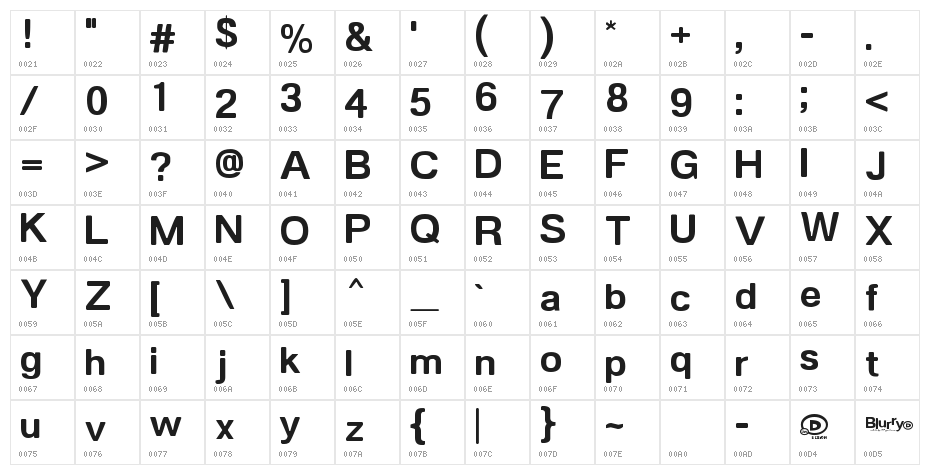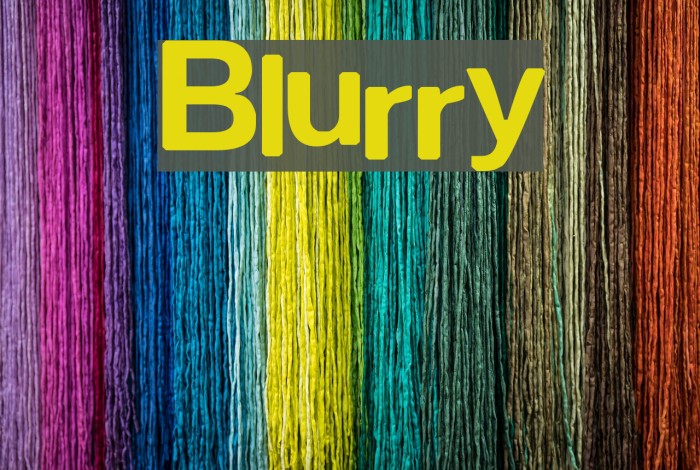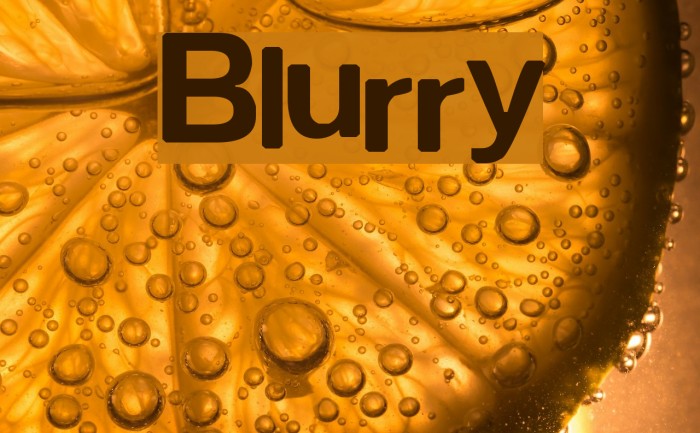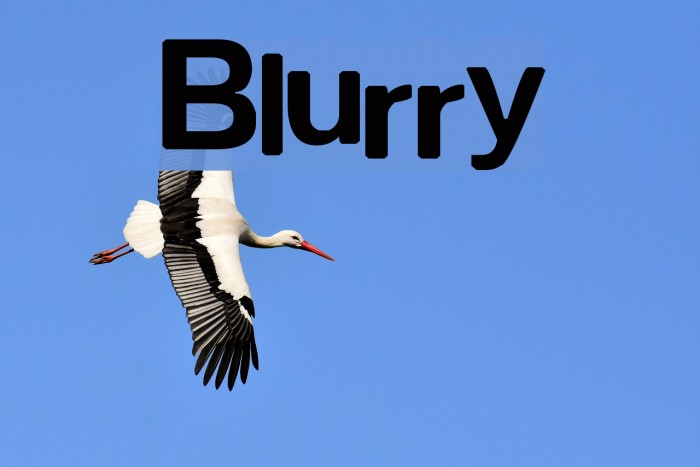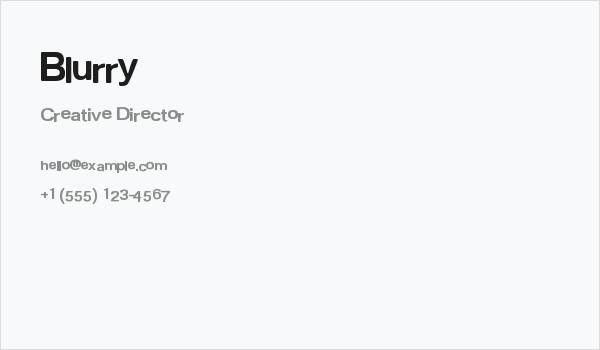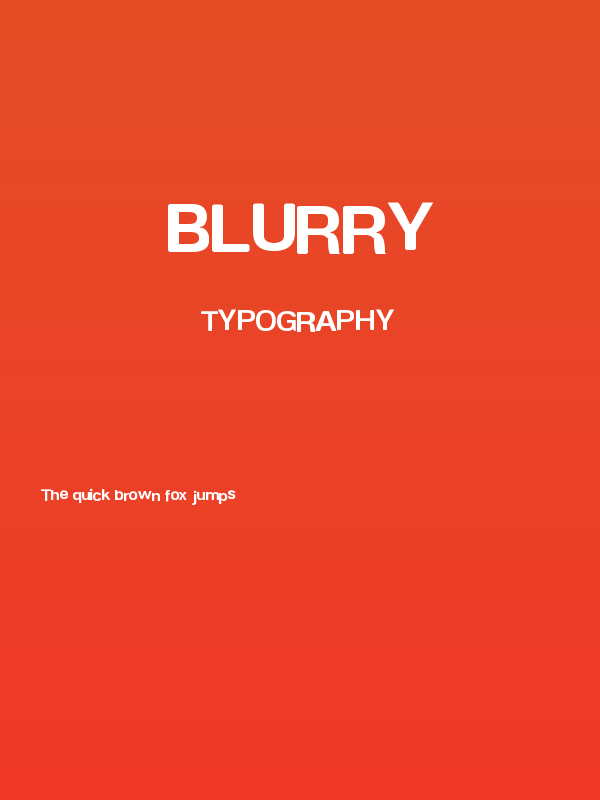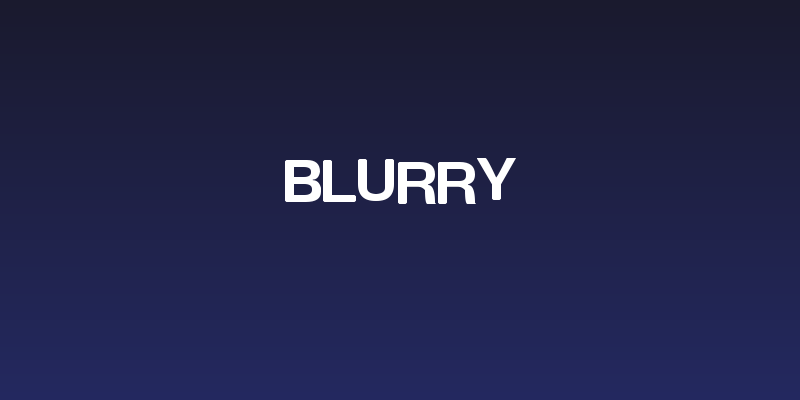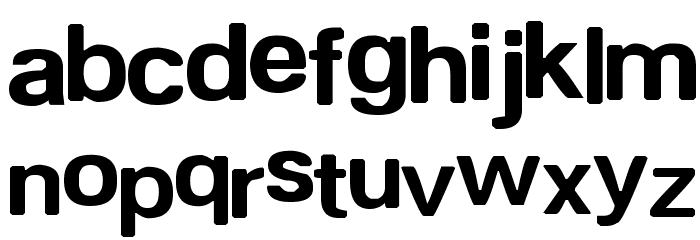
Blurry Font
Blurry Description
This font features a bold and modern sans-serif style with clean, uniform strokes. The characters are well-defined with a consistent thickness, providing a strong and impactful appearance. The uppercase and lowercase letters maintain a harmonious balance, while the numerals and special characters are clear and easy to read. The overall design is straightforward, making it suitable for a variety of applications where clarity and modernity are desired.
| Use Case | Headlines, Logos, Digital Interfaces |
| Proposed Projects | Ideal for branding, advertising, headlines, and digital interfaces where a modern and bold statement is needed. |